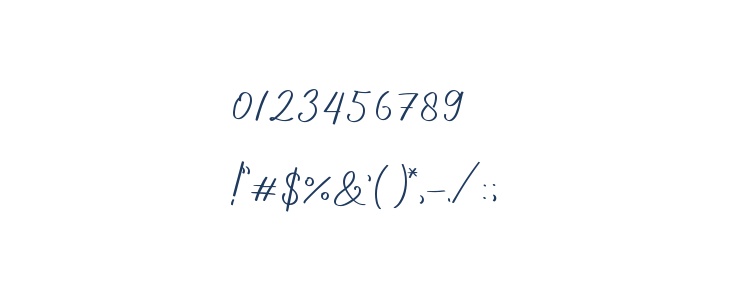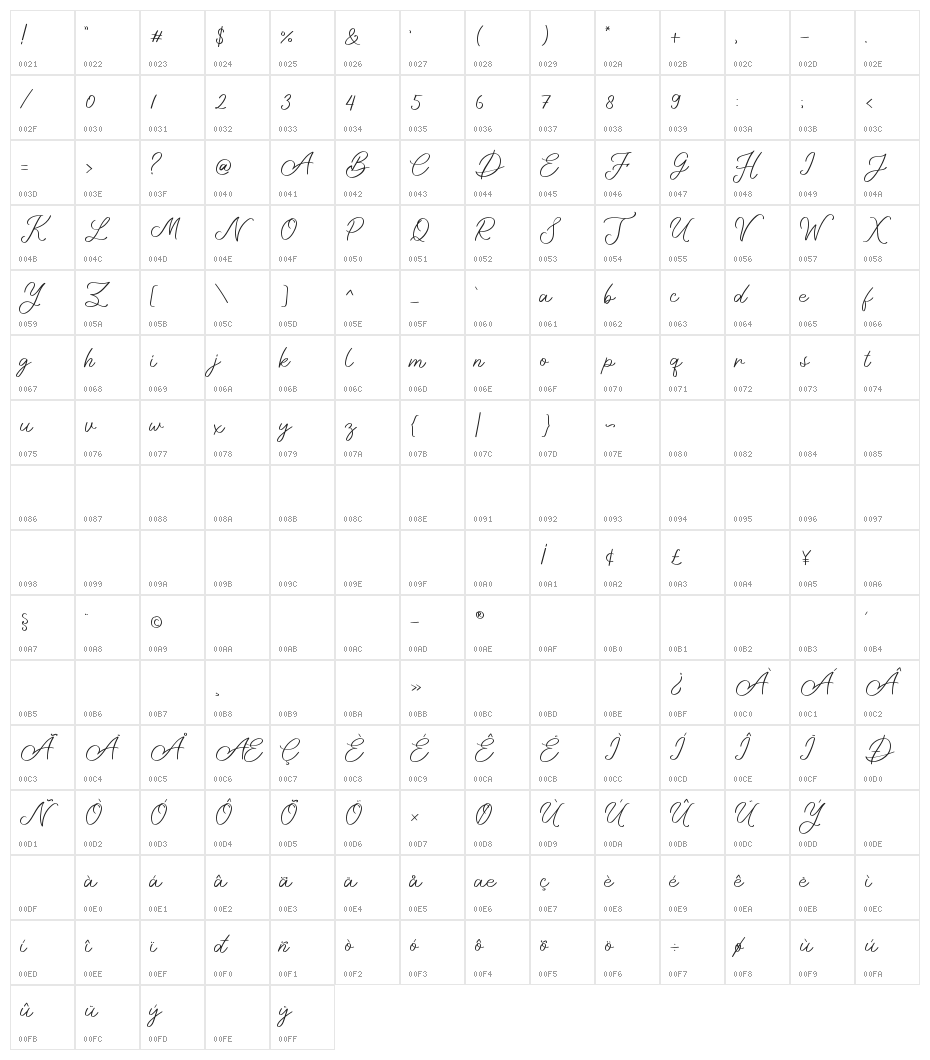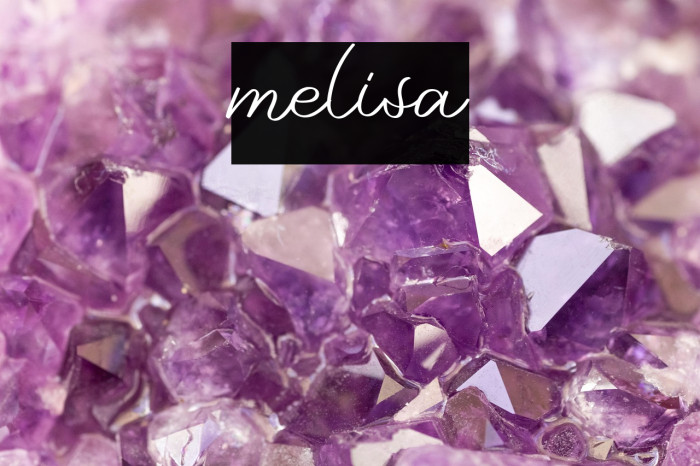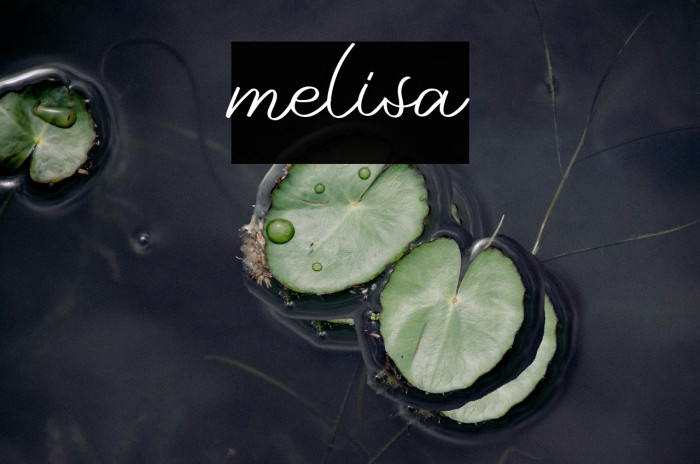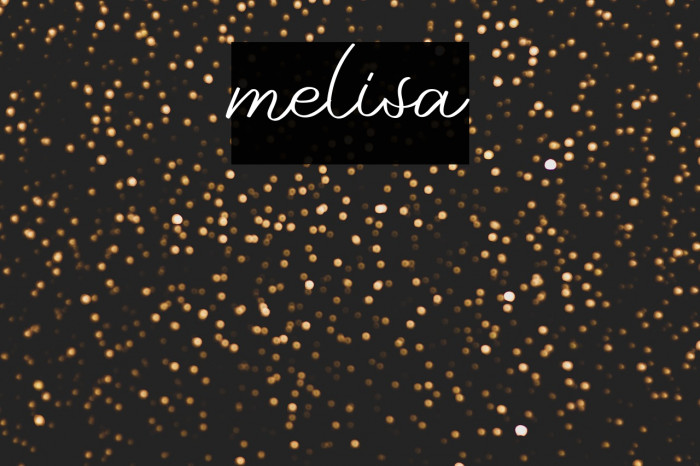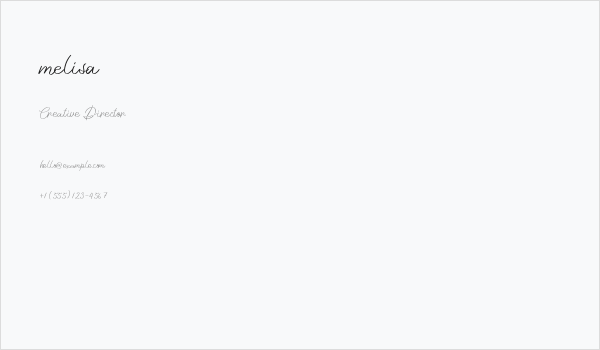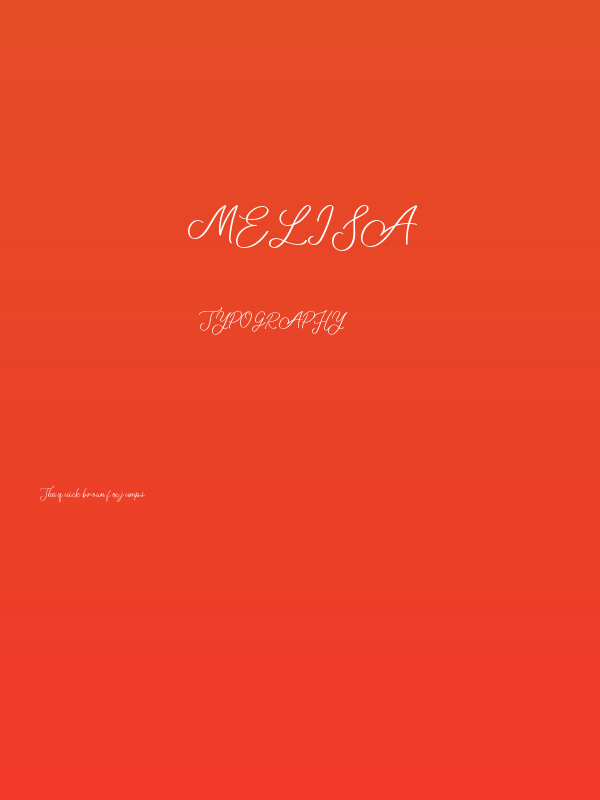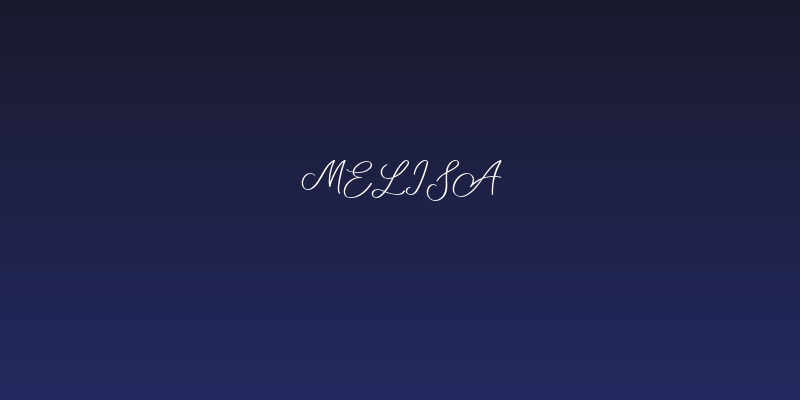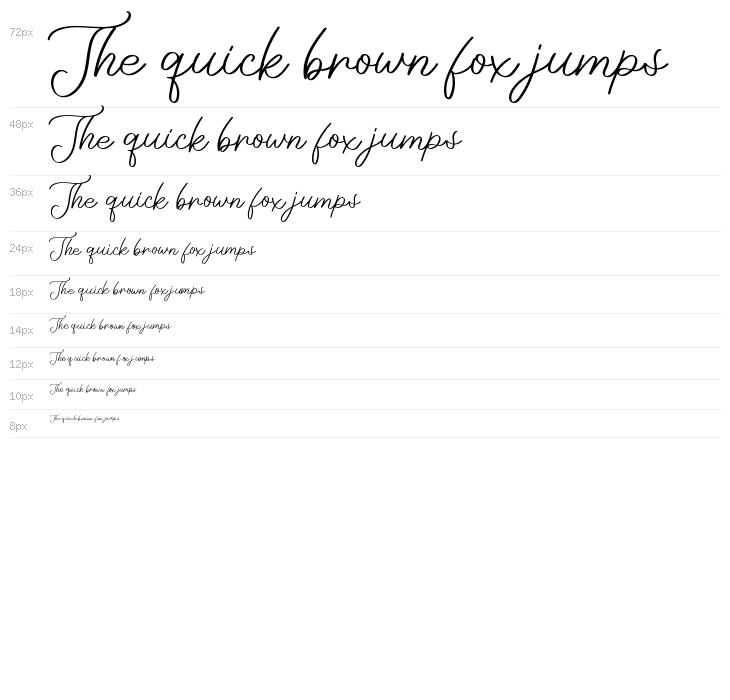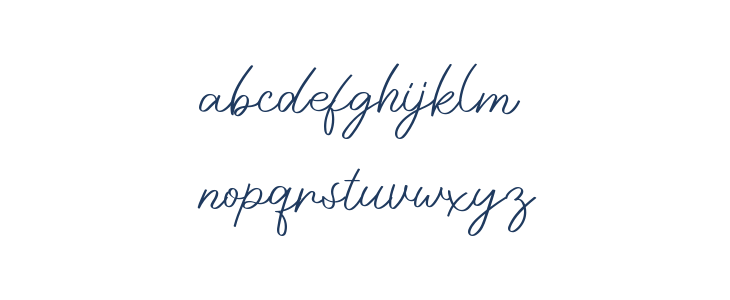
melisa Font
melisa Description
This elegant script font features a flowing, cursive style with smooth, continuous strokes that mimic the fluidity of handwriting. The uppercase letters are ornate and slightly larger, providing a graceful and sophisticated appearance. The lowercase letters maintain a consistent flow, enhancing readability while preserving the font's decorative nature. Numbers and special characters are designed to complement the overall aesthetic, ensuring a cohesive look across all text elements. The font's delicate lines and curves make it ideal for projects that require a touch of elegance and personal flair.
Overall StyleElegant, Decorative
Use CaseLogos, Invitations, Personal Branding
Proposed ProjectsIdeal for wedding invitations, greeting cards, personal branding, and elegant logos.